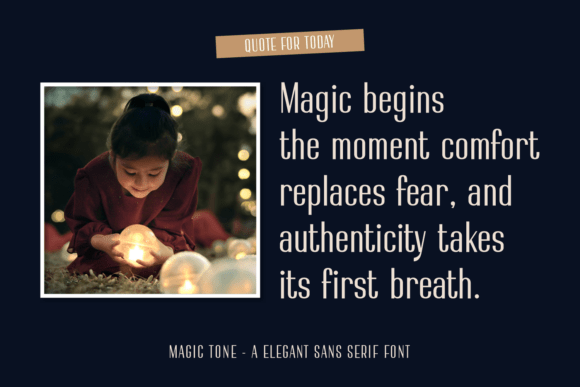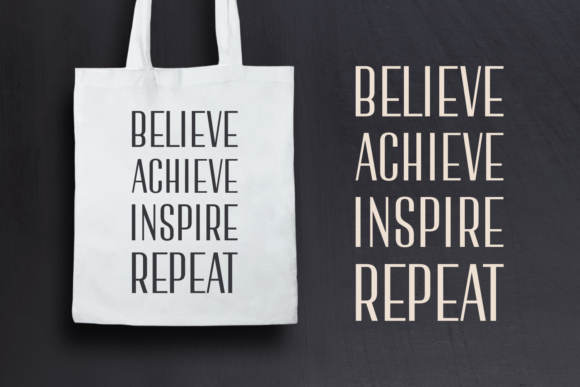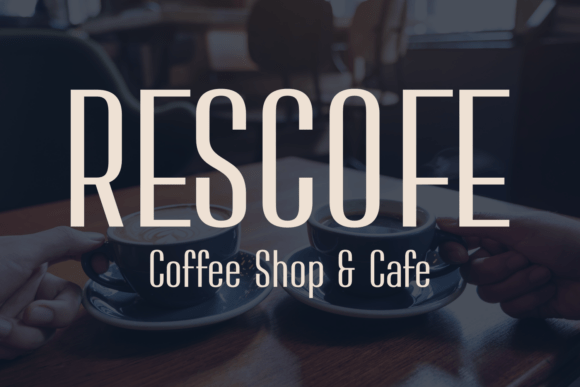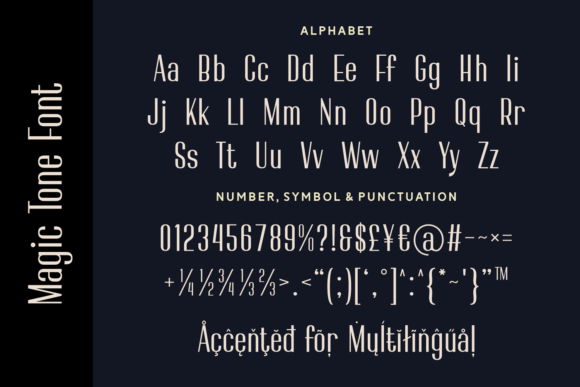
Introduction to Magic Tone Font
Magic Tone is a modern, elegant sans serif font with a graceful, elongated style that evokes sophistication and charm.
With its narrow proportions and delicate strokes, this typeface is perfect for luxury branding, fashion editorials, wedding invitations, social media graphics, and upscale packaging Its ethereal vibe pairs beautifully with dreamy, celestial, or cinematic visuals.